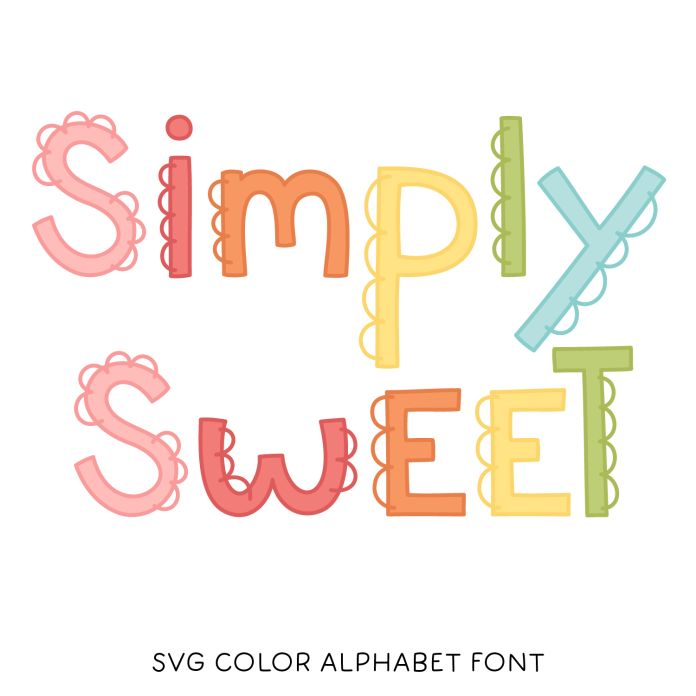
Create titles, sayings and more with the 3 Simply Sweet SVG color, black and outline fonts! This font also features every letter in 5 colors for perfect rainbow text – access the alternate colored characters by using the Glyphs panel in Photoshop or Illustrator (Type menu -> Panels -> Glyphs in PS and Type menu -> Glyphs in AI). Includes A to Z characters and numbers only.